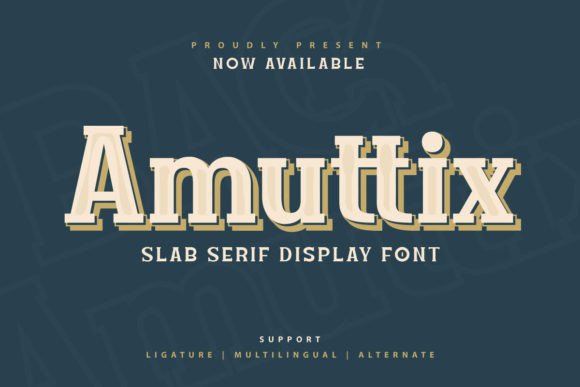
Welcome to the Era of Modern Elegance with Amuttix Font
As a designer, I’ve had my fair share of moments where finding the perfect font felt like searching for a needle in a haystack. I recall working on a project where I needed a font that exuded elegance, power, and a touch of modernity. The client wanted a design that would make their brand stand out in a crowded market, and I was determined to deliver. After hours of scouring through font libraries, I stumbled upon Amuttix – a slab serif display font that would change the game for my project and, I dare say, for many of yours too.
The Amuttix Advantage: Unleashing Modern Elegance
Amuttix is more than just a font; it’s a statement. With its clean lines, elegant curves, and powerful presence, it’s the perfect choice for projects that demand a modern edge. What sets Amuttix apart is its versatility, offered in four different family variants: Regular, Outline, Shadow, and Light. This range allows you to tailor your design with incredible precision, ensuring that the final product aligns with your vision.
Key Features of Amuttix:
• ✨ Clean and Elegant Design: Perfect for projects that require a sophisticated look.
• ✅ Four Family Variants: Regular, Outline, Shadow, and Light for versatile design options.
• 🌎 Multilingual Support: Ensures your message reaches a global audience.
• 💪 Powerful and Memorable: Makes your message stand out with a distinctive touch of elegance.
• ✨ The elegance and modernity it brings to any project.
• ✅ The flexibility offered by its four variants.
• 🌈 The wide range of languages supported, making it a global-friendly font.
• ⚠️ Legibility at Small Sizes: Like many display fonts, Amuttix might lose some legibility when used at very small sizes. It’s best used at 16px or larger for optimal impact.
• 🤔 Overuse of Variants: With four variants, there’s a risk of overusing them in a single design. Balance is key to maintaining a cohesive look.
The Story Behind Amuttix: A Glimpse into Designer Inspiration
Amuttix was born from a desire to merge modernity with classic elegance. Its designer sought to create a font that would serve as a bridge between past and present, offering a fresh take on traditional slab serif fonts. The result is a font that feels both timeless and contemporary.
Q: What makes Amuttix unique?
A: Amuttix stands out due to its elegant design, versatility with four variants, and extensive language support.
Q: Is Amuttix suitable for body text?
A: While Amuttix excels as a display font, it’s best used sparingly in body text due to its design characteristics.
With Amuttix, you’re not just choosing a font; you’re embracing a design philosophy that blends modern elegance with powerful communication. Whether you’re a designer, crafter, or creative hobbyist, Amuttix offers the tools to elevate your visuals and make a lasting impression.